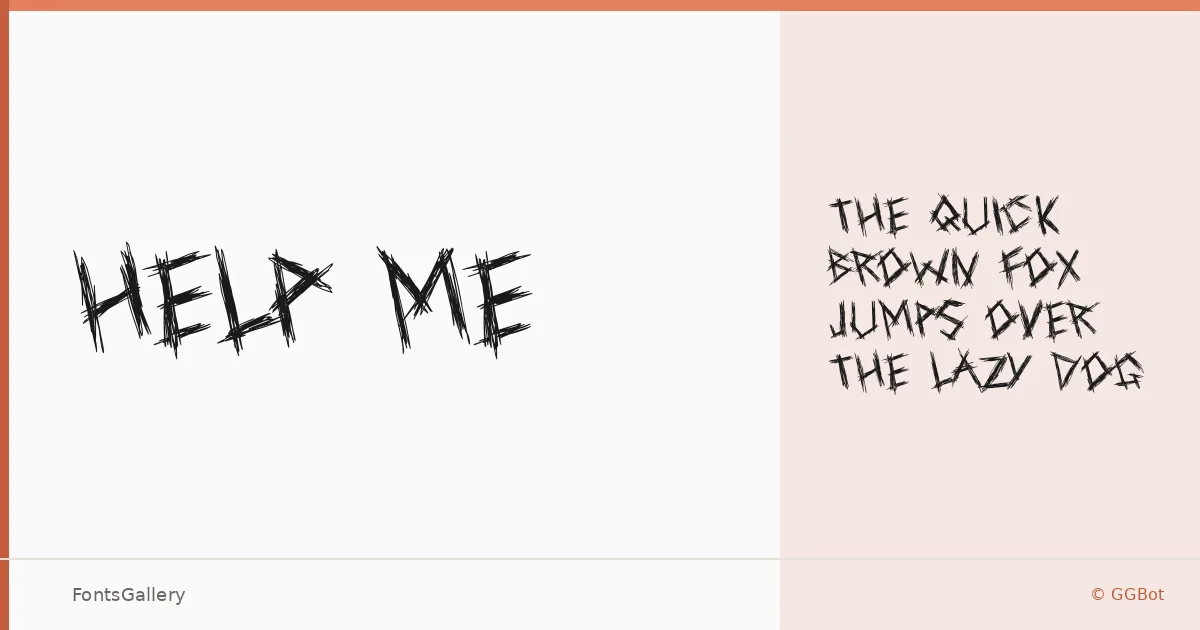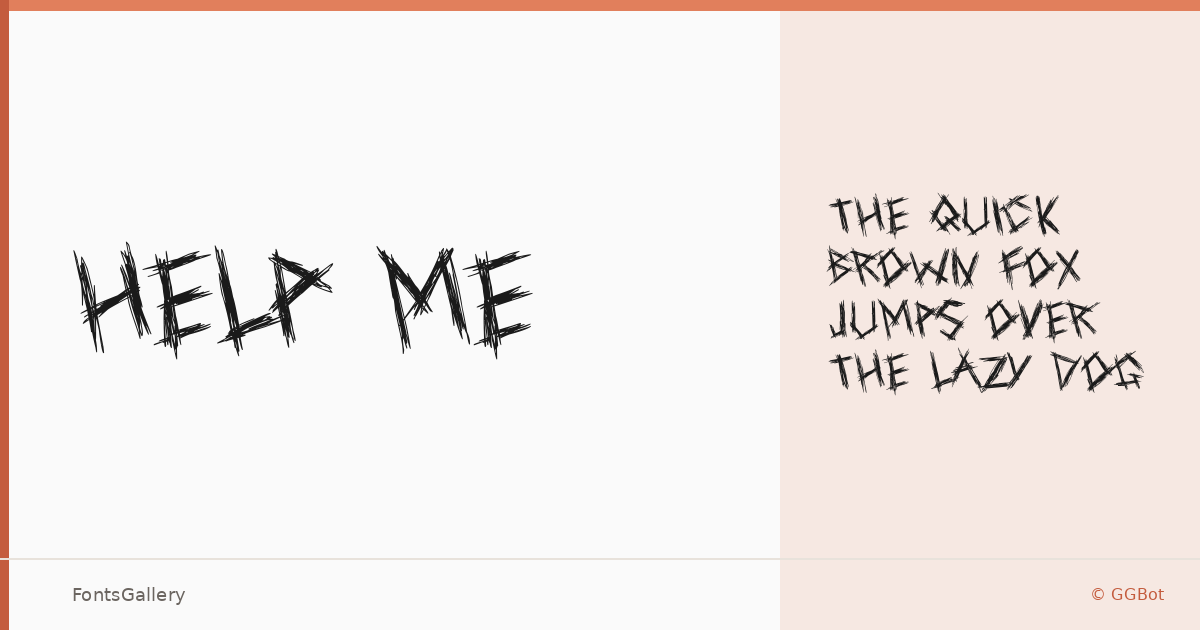
About Help Me Font
Help Me is a handwritten typeface crafted by designer GGBot, bringing a raw, expressive energy to any creative project. Its bold, vintage-inspired character makes it an immediate attention-grabber, evoking the worn authenticity of hand-lettered signage and rustic craftsmanship. The grunge undertones give it a gritty, lived-in quality that feels both nostalgic and strikingly contemporary.
The letterforms of Help Me reflect a deliberately imperfect, handwritten style with bold strokes that carry a rugged, rustic charm. Grunge-influenced textures and vintage irregularities in the characters add depth and personality, making each letter feel organically crafted rather than mechanically produced. This combination of boldness and rough-edged detail gives the typeface a powerful visual presence that commands attention.
Help Me is ideally suited for high-impact designs such as posters, t-shirt graphics, social media visuals, and greeting cards where a bold, expressive hand-lettered look is desired. Its vintage grunge aesthetic works particularly well in designs that call for an authentic, artisanal, or retro feel. For a compelling typographic pairing, consider combining Help Me with Aresink for a cohesive handcrafted look, or with Helvetica to create a striking contrast between raw expressiveness and clean simplicity.